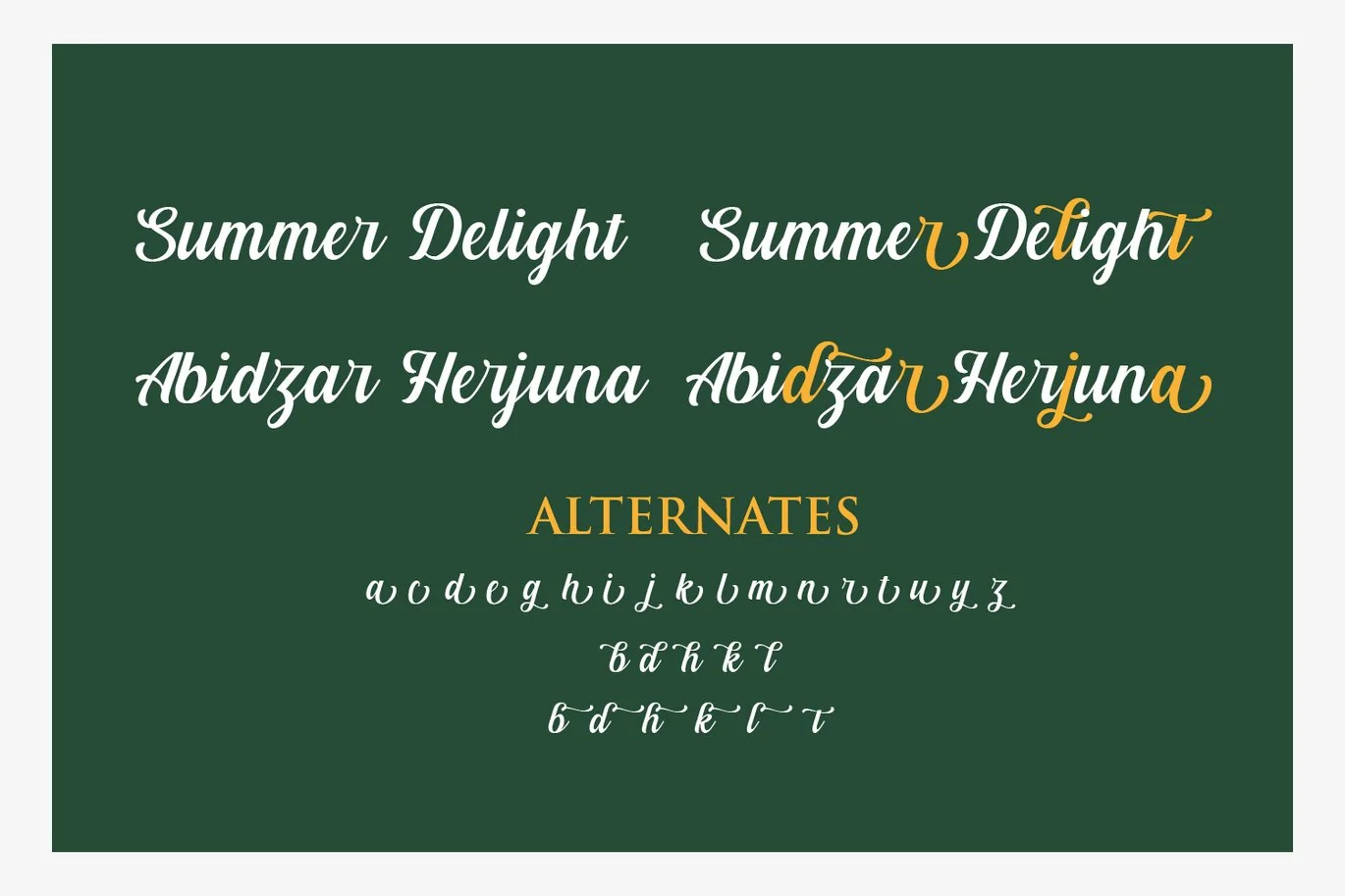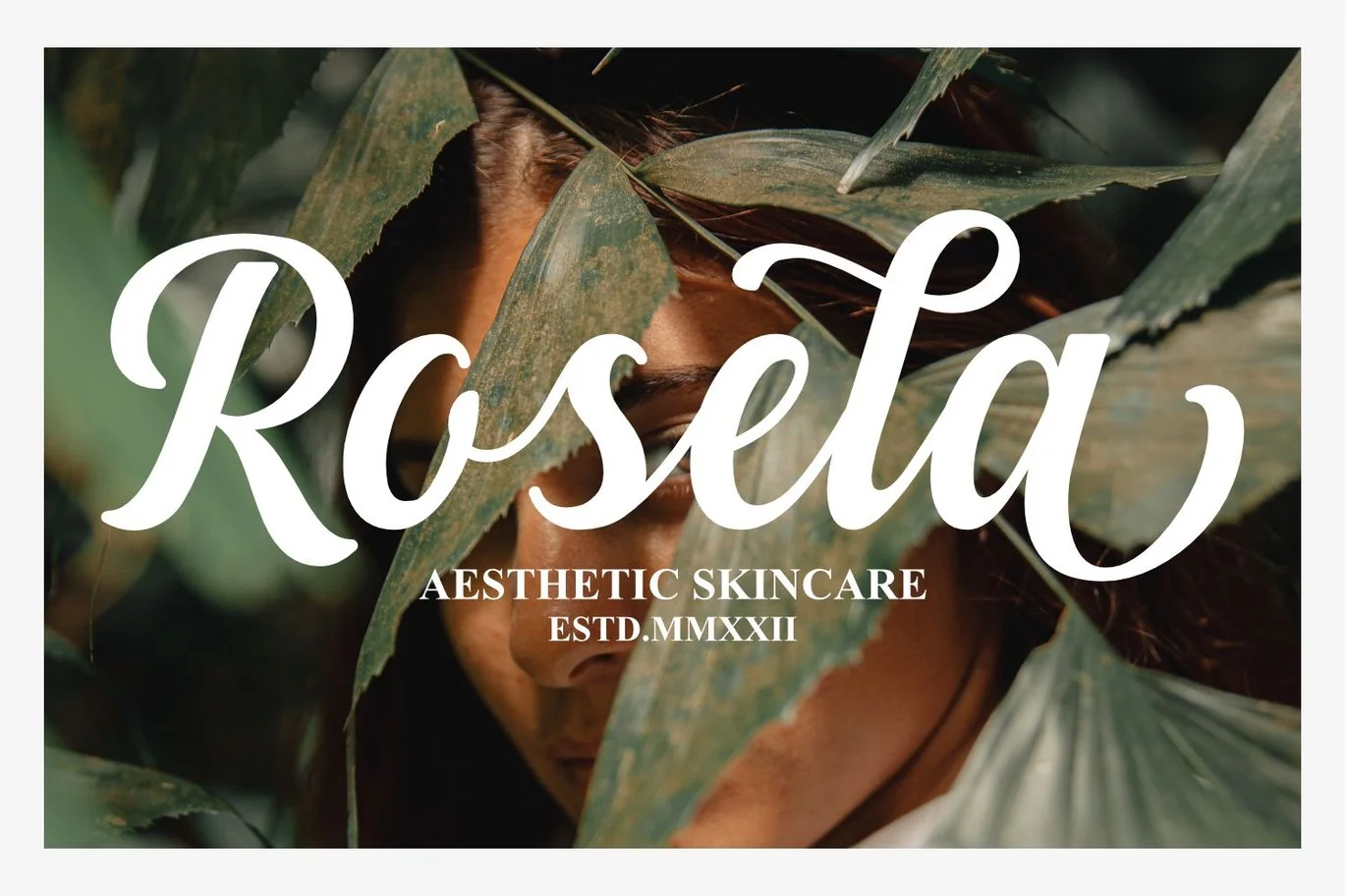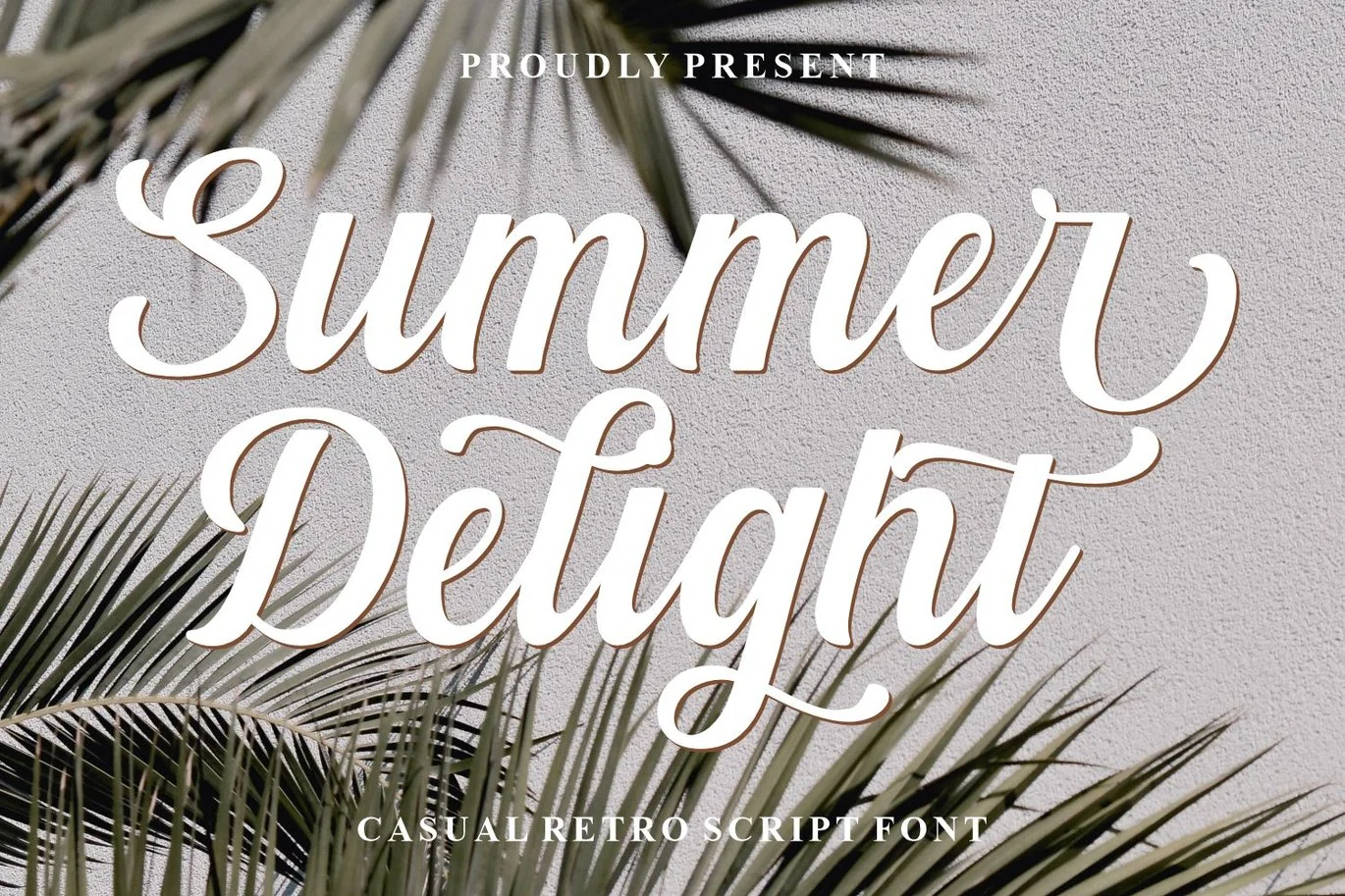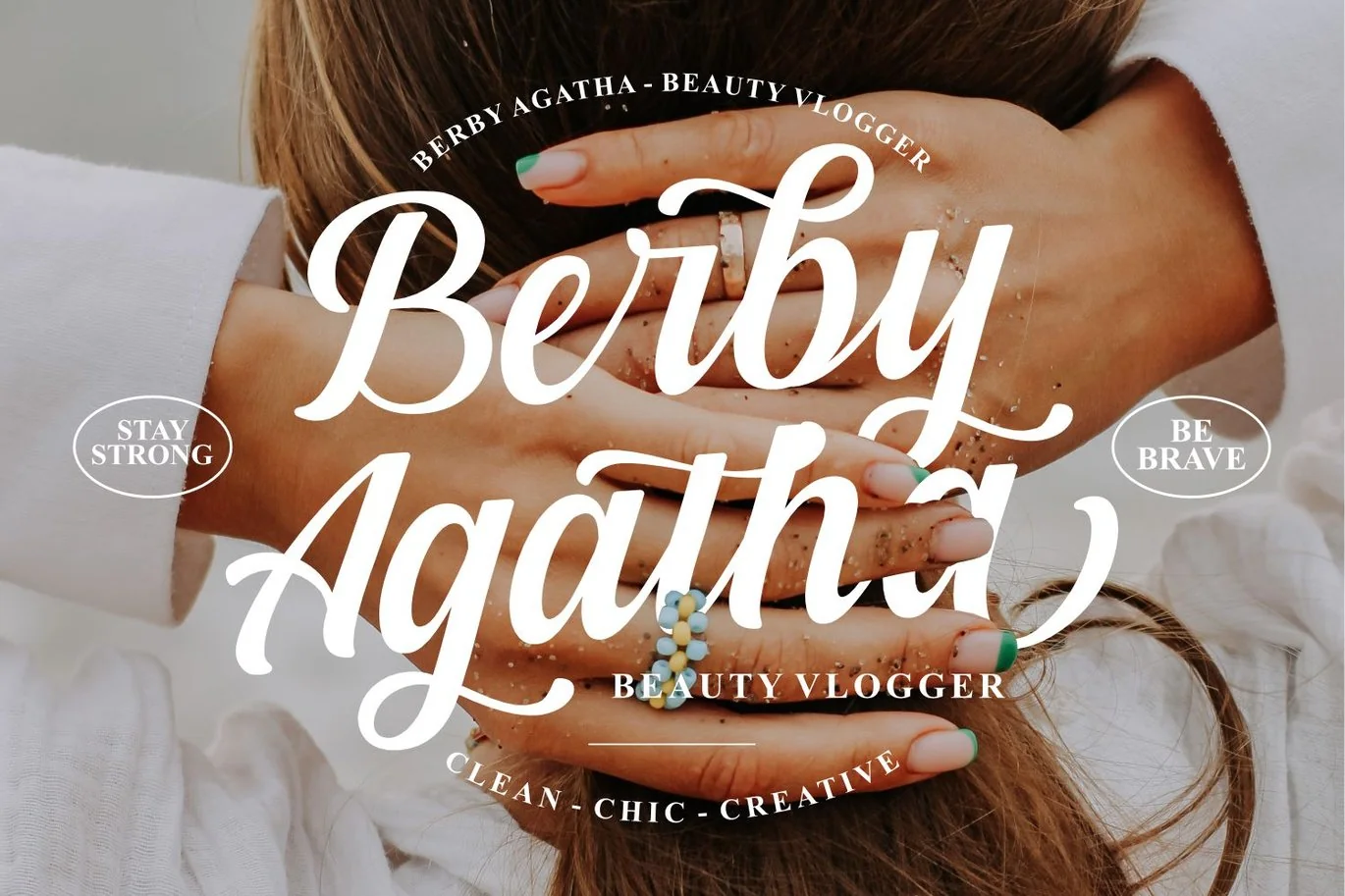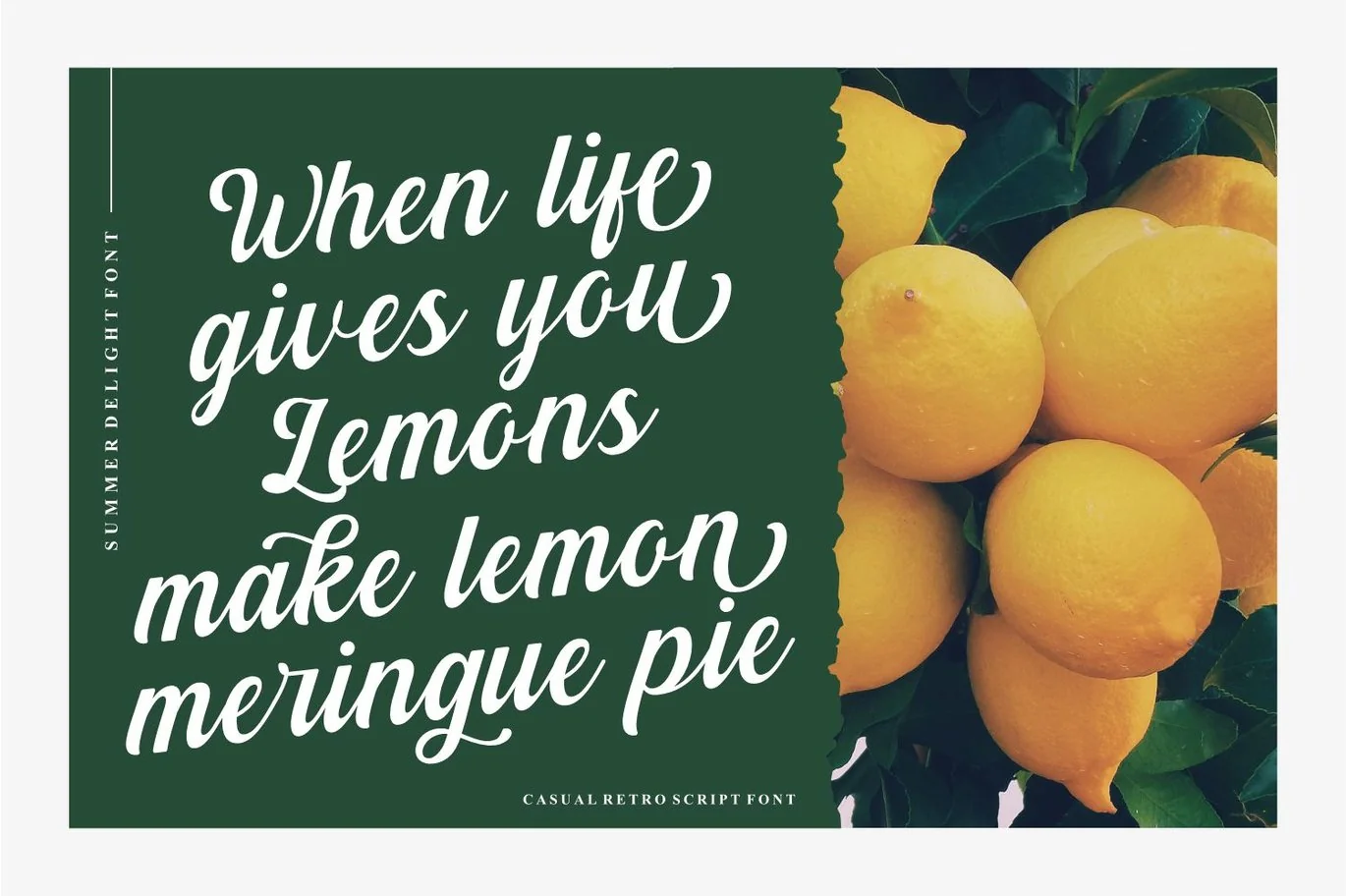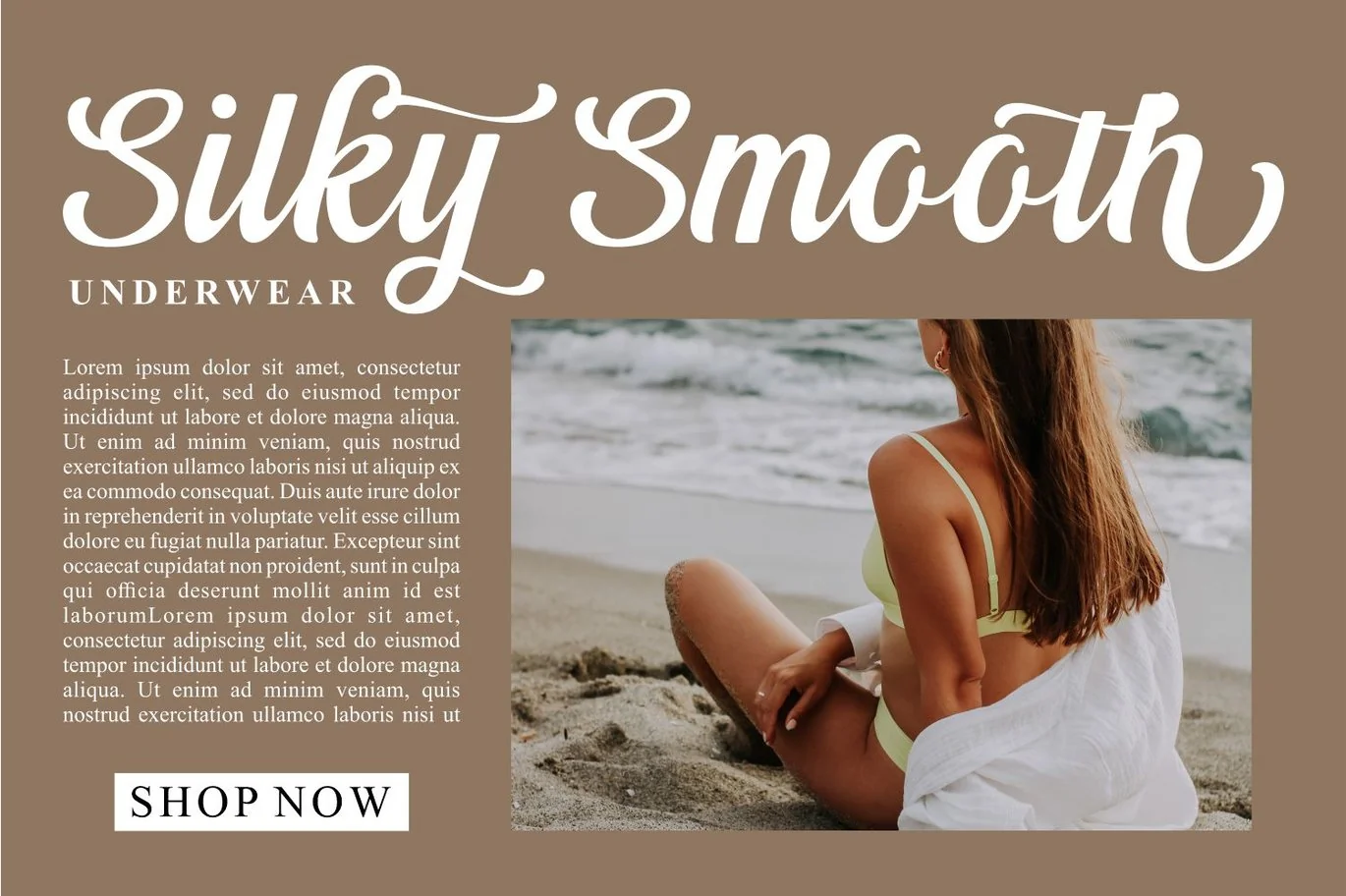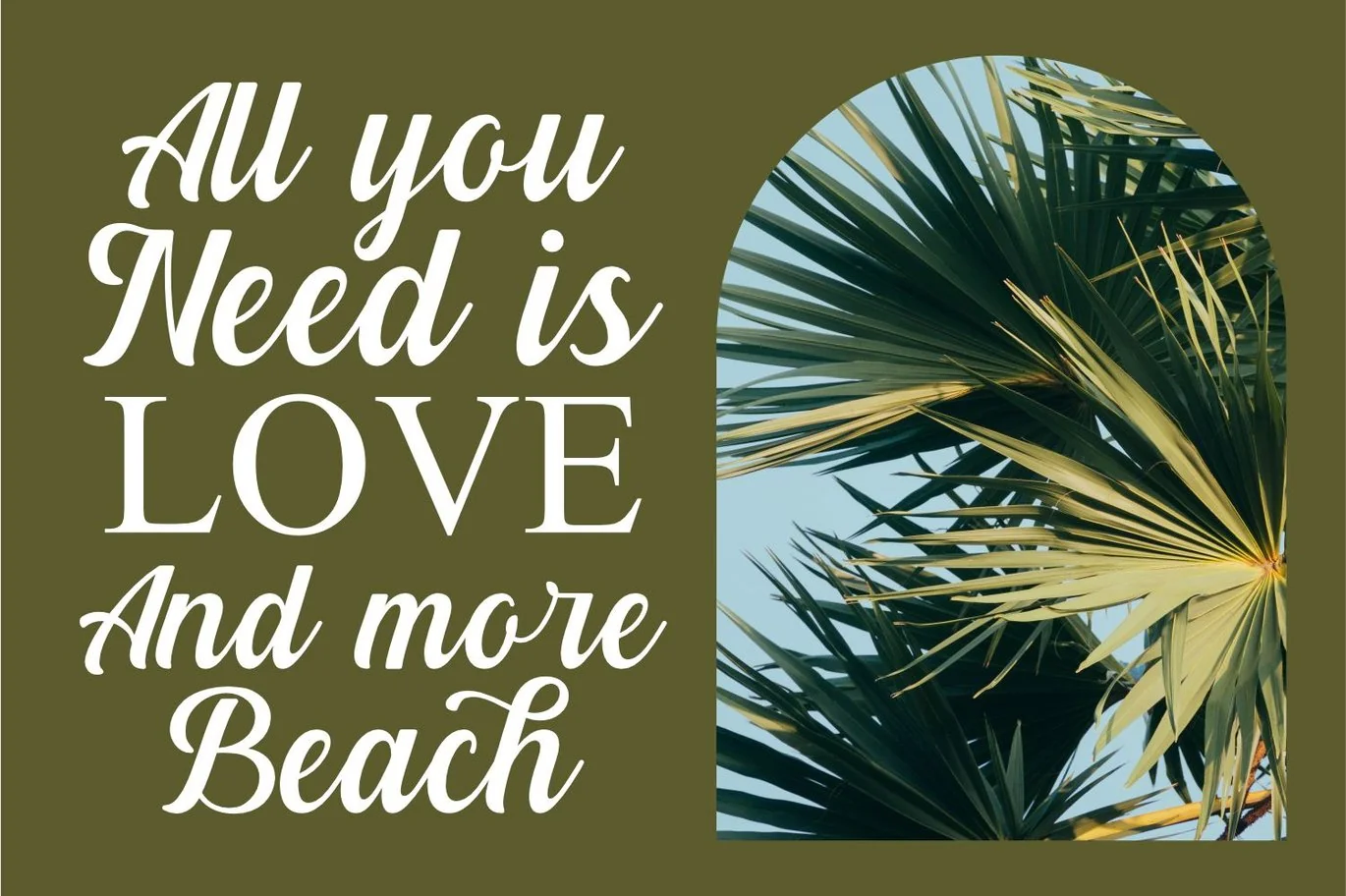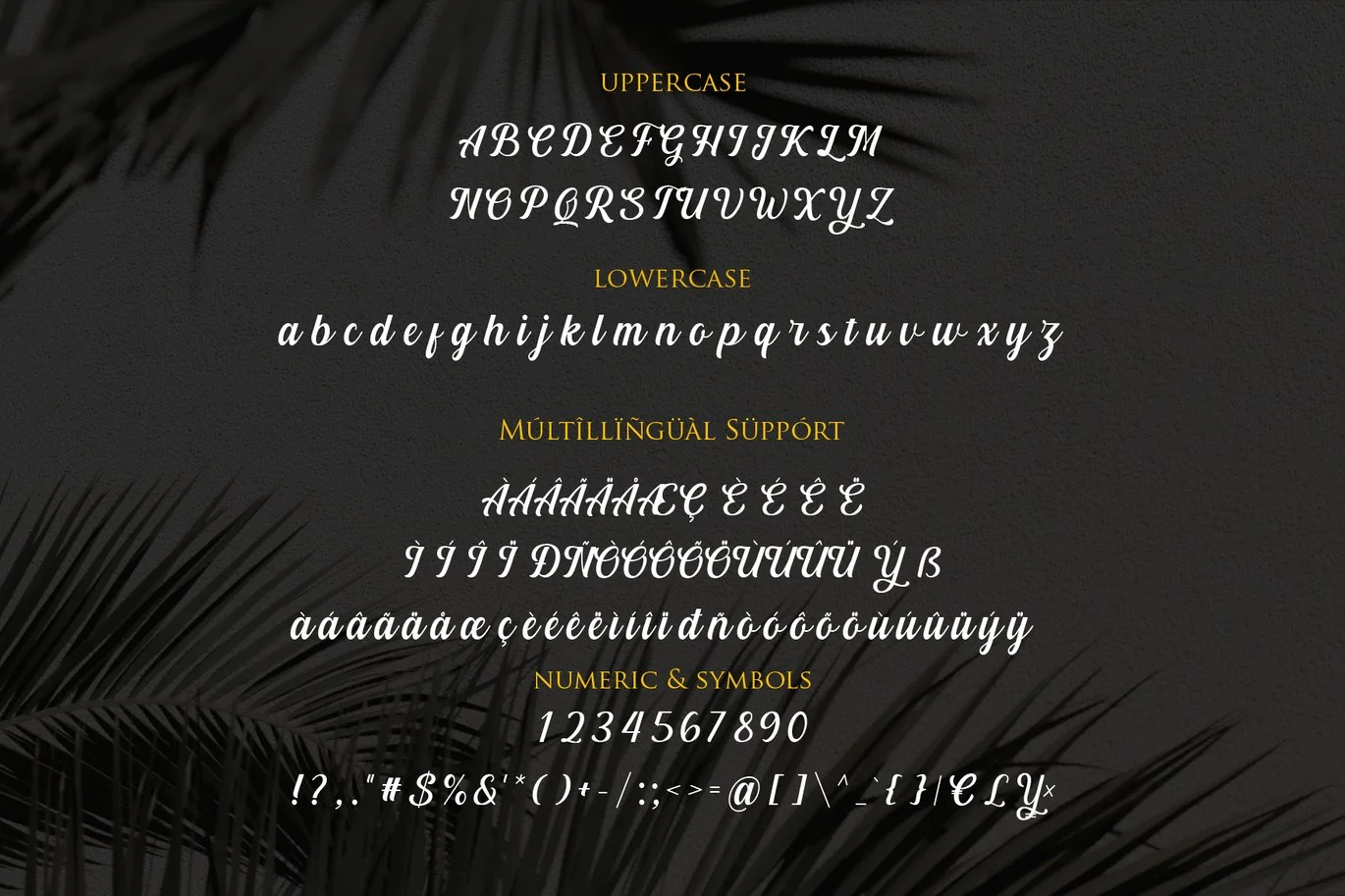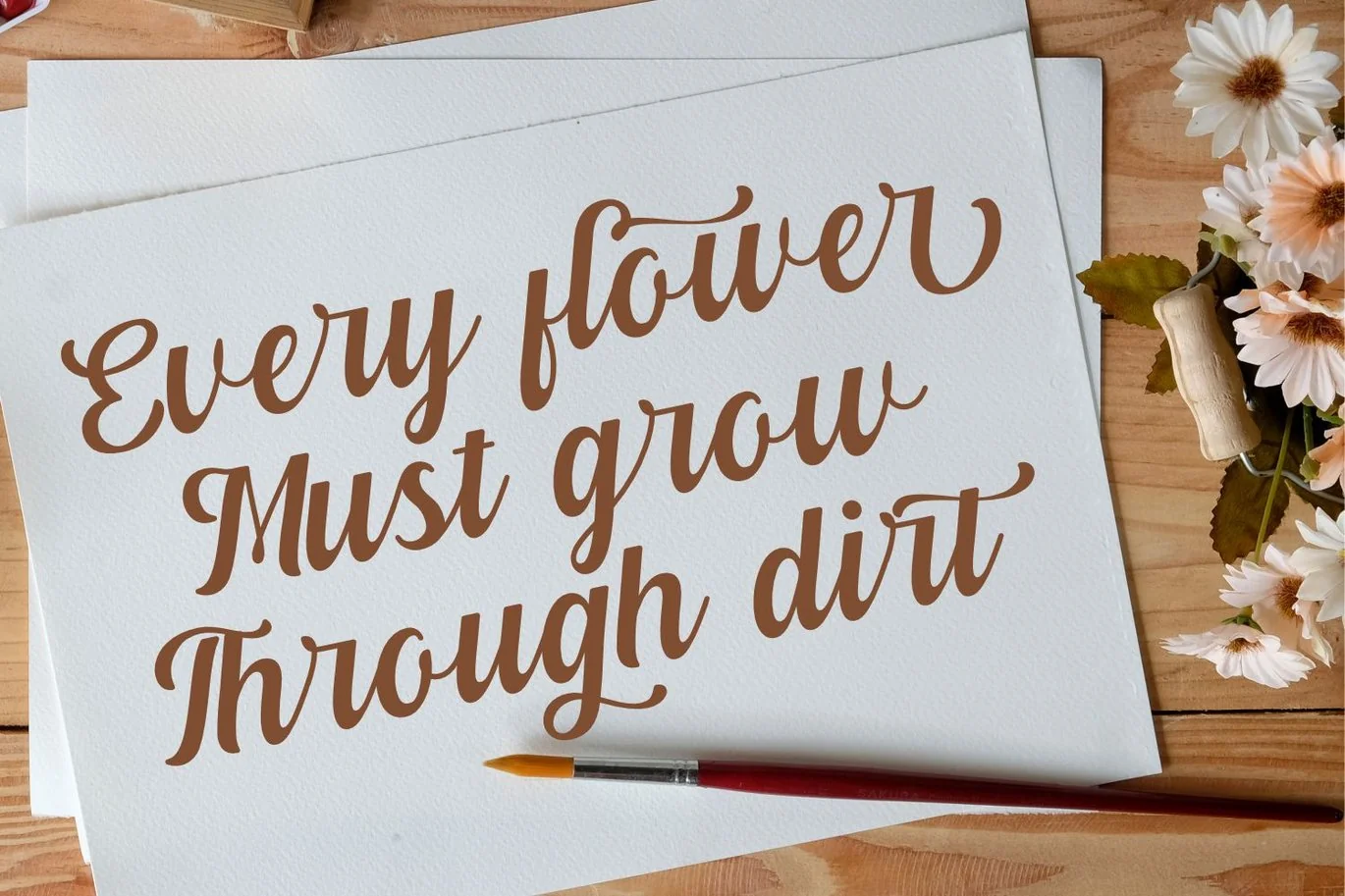
Summer Delight Font
Introducing A new beautifull, smooth and organic casual retro script font.
Summer Delight Font is casual retro script font that takes inspirations from the old look, nature and smooth shape that can be used for your various designs. The characteristic of the font will make your design smooth, elegant and classy yet not to formal.
Summer Delight Font is perfect for branding projects, logo, wedding designs, social media posts, advertisements, product packaging, product designs, label, photography, watermark, invitation, stationery or projects that fit to the characteristic of the font.
**FEATURES **
*Uppercase -Lowercase
*Number
*Punctuation
*Multilingual
*Alternates
*PUA Encode
*Opentype